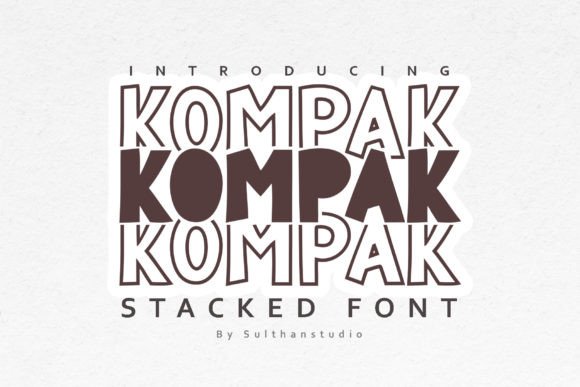
Kompak: A Playful Display Font for Bold Brand Identities
It started with a blank brand board and a client who said, “We want our café to feel like stepping into a friend’s sunlit kitchen—warm, unhurried, and full of quiet joy.” No mood boards yet. Just a stack of sketchbook pages, some espresso-stained notes, and the quiet hum of a design process finding its rhythm. That’s when I opened my font library and typed “Kompak” into the search bar.
Kompak is a display font built for personality—not polish. Its stacked letterforms give it instant visual weight, like letters gently piled on top of each other, creating subtle rhythm and depth. The bold, rounded characters don’t shout—they grin. There’s no sharpness here, no rigid geometry—just soft curves, generous counters, and an unmistakable sense of approachability. It’s not trying to be serious. And that’s exactly why it worked.
I dropped Kompak into the first logo mockup—just the café’s name in all caps—and immediately felt the shift. Where earlier sans serif options felt clean but generic, Kompak added warmth without leaning into cliché. No wobbly script, no forced nostalgia—just confident, friendly presence. It held up beautifully at 48pt on a digital menu preview and stayed legible (and charming) even scaled down to 24pt on a laminated counter card.
As a display font, Kompak isn’t meant for paragraphs or body text—and it shouldn’t be. Its strength lies in short-form impact: signage, product labels, social media banners, website headers, and packaging accents. On the café’s ceramic mug mockup, Kompak wrapped neatly around the curve of the handle, its rounded forms echoing the tactile softness of the glaze. On a kraft paper bag label, it stood out without competing with hand-drawn botanical illustrations—its playfulness complemented, rather than overpowered, the craft aesthetic.
Readability? Surprisingly strong for a display typeface—especially in medium to large sizes. The open apertures and consistent stroke contrast keep characters distinct, even in lower-resolution print or on mobile screens. That said, I tested it across contexts before committing: printed on uncoated stock, backlit on a small LED sign, overlaid on textured photography, and rendered in Safari vs. Chrome. Each time, Kompak held its tone—friendly, grounded, memorable.
One thing I appreciated early on was how naturally Kompak supports visual hierarchy. Used alone, it commands attention. Paired thoughtfully, it becomes a focal anchor. For the café’s full identity system, I paired Kompak with a warm, low-contrast serif for menus and ingredient lists—a classic serif with gentle bracketing and relaxed spacing. The contrast worked because neither font tried to be the other: Kompak brought energy; the serif brought clarity and calm. No tension. Just balance.
For digital use, I kept Kompak strictly to hero sections, Instagram story highlights, and email headers—never body copy. In Figma, I checked spacing carefully: its stacked structure means tighter default tracking than many display fonts, so I loosened it slightly for web use to avoid crowding. On the homepage, it sat cleanly over a softly blurred photo of pastries—no stroke, no shadow needed. Its inherent weight and shape did the lifting.
What surprised me most was how well it translated across physical touchpoints. On vinyl window decals, Kompak’s curves cut cleanly. On matte-finish business cards, its boldness gave tactility—even without foil or embossing. And on reusable tote bags? It held up through multiple washes in test prints, retaining its charm and legibility. That kind of versatility matters when you’re building a real-world brand—not just a pretty PDF.
Pairing advice? Kompak plays well with humanist sans serifs (think gentle, airy options—not geometric ones), warm serifs, and even restrained handwritten fonts—but only as accents. Avoid pairing it with other high-contrast or heavily decorated display fonts; it’s got enough character to stand solo. If your project calls for a script, keep it minimal—single-weight, low-swing—and use it only for tiny flourishes, like “est. 2023” beneath the logo.